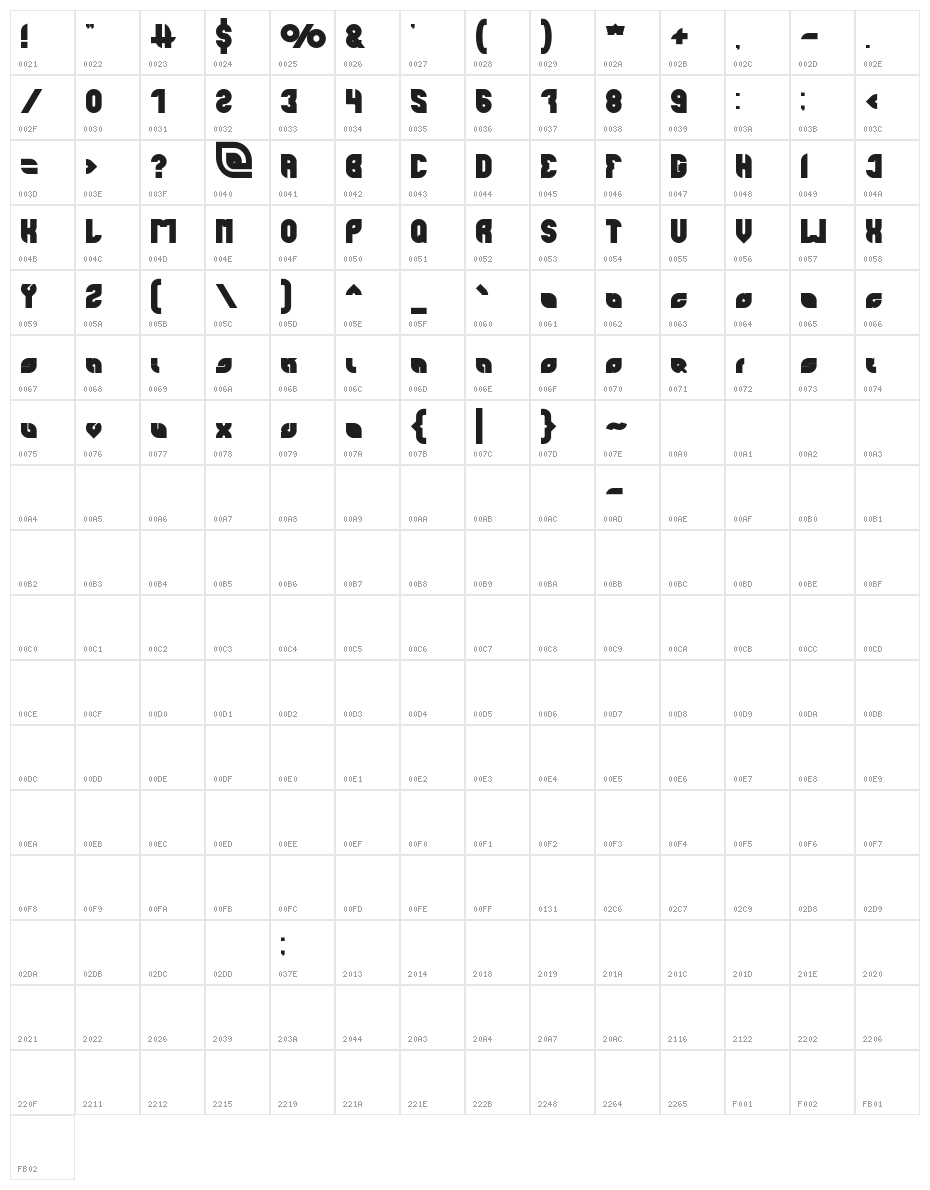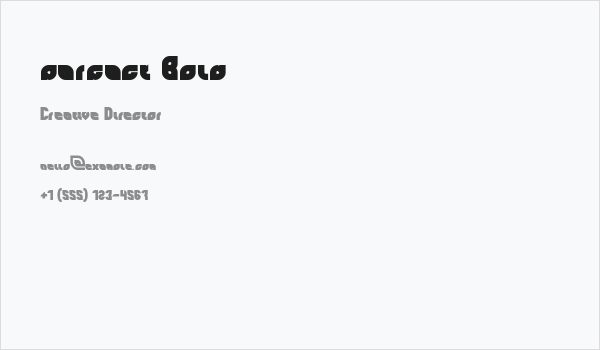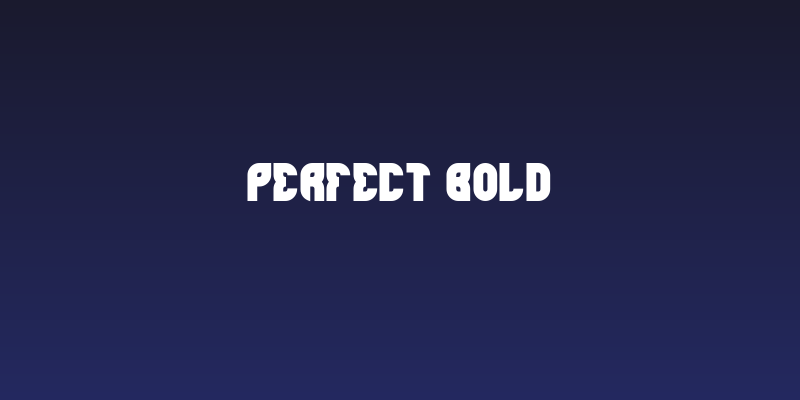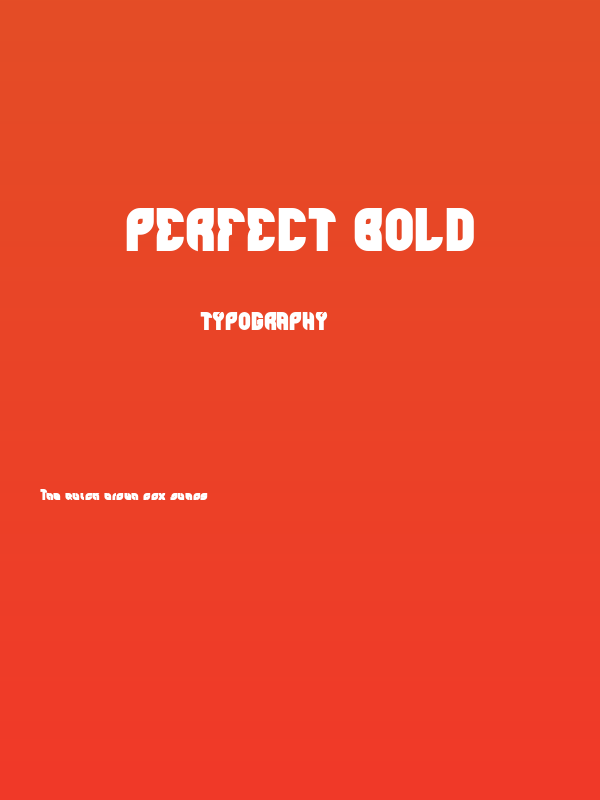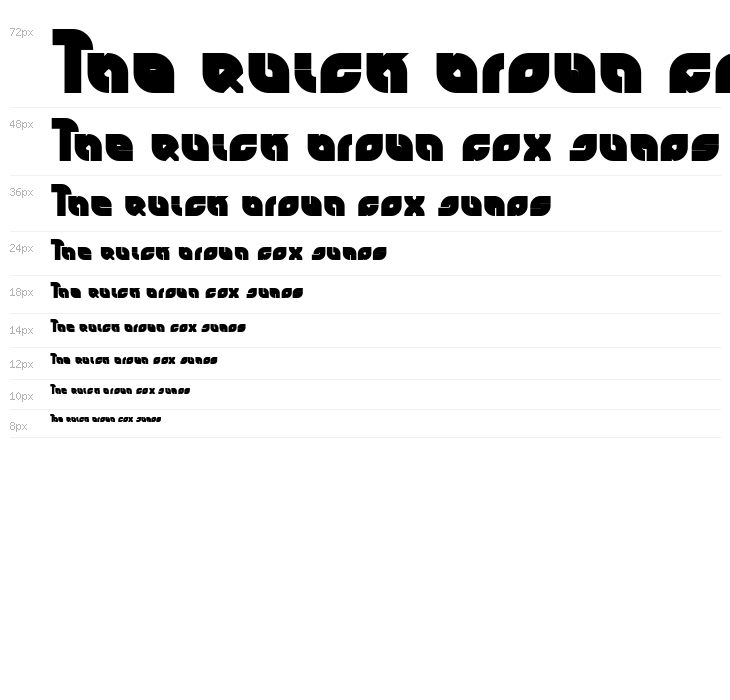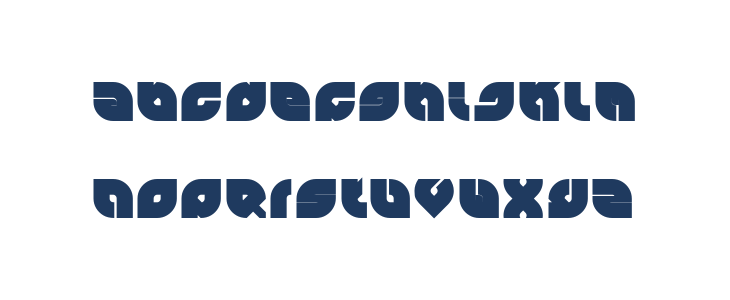
perfect Bold Font
perfect Bold Description
This font features a bold and geometric design, characterized by its strong, block-like letterforms. The characters are constructed with thick strokes and sharp angles, creating a modern and assertive appearance. The uppercase and lowercase letters maintain a consistent style, with minimal variation in stroke width, contributing to a cohesive and uniform look. The numerals and special characters follow the same design principles, ensuring a seamless integration across all glyphs. This font's distinct style makes it highly suitable for impactful and attention-grabbing designs.